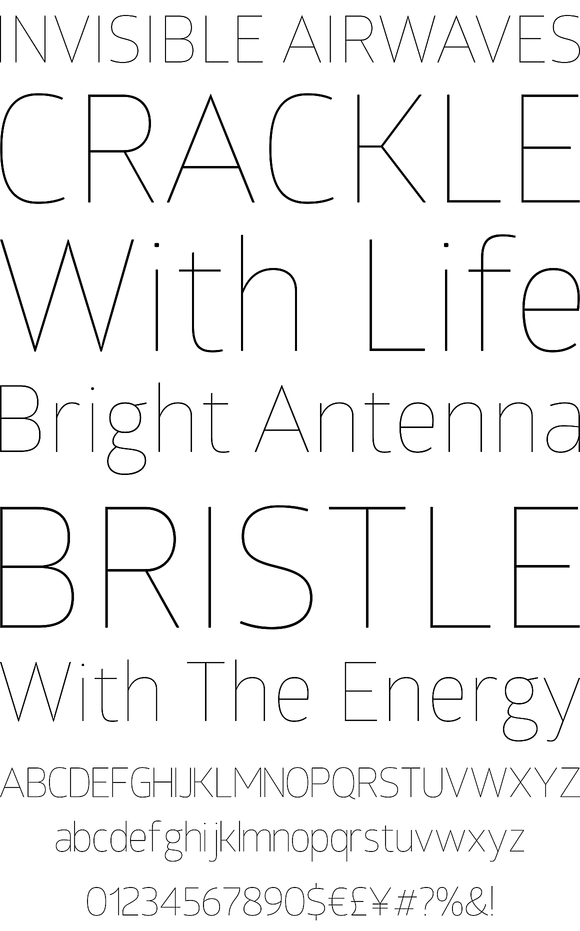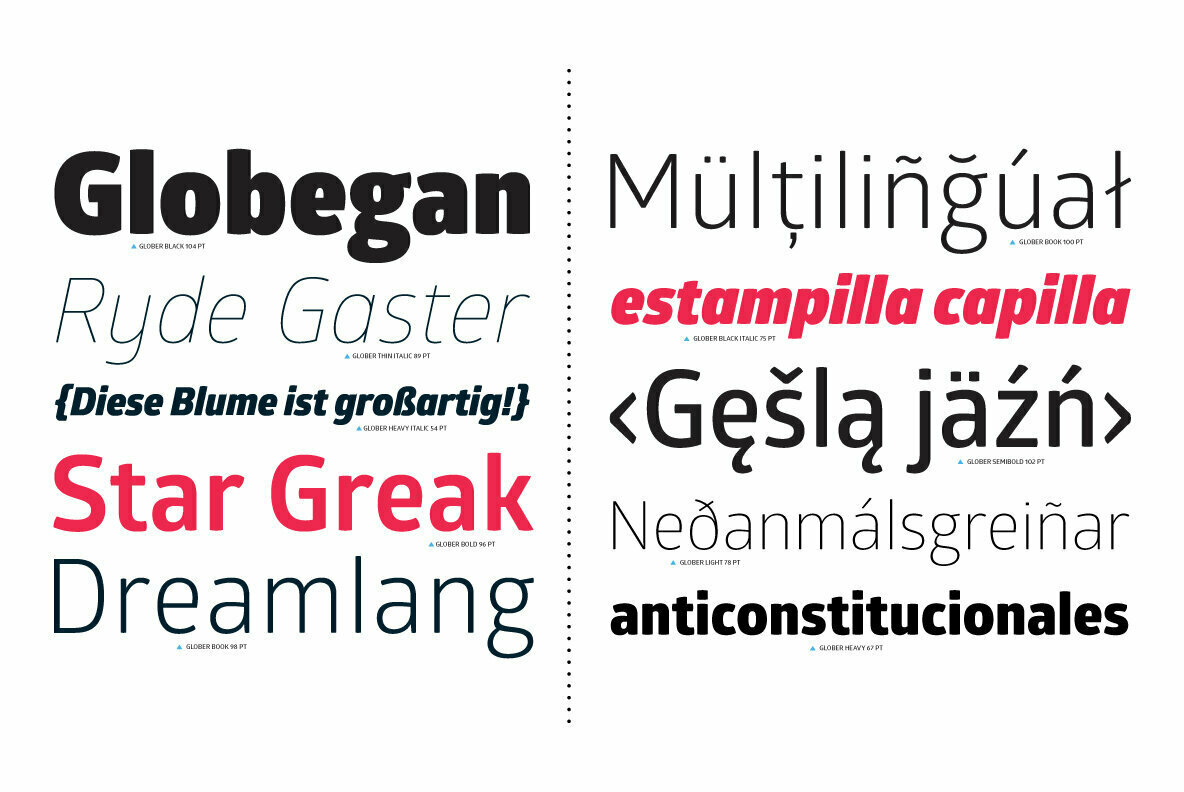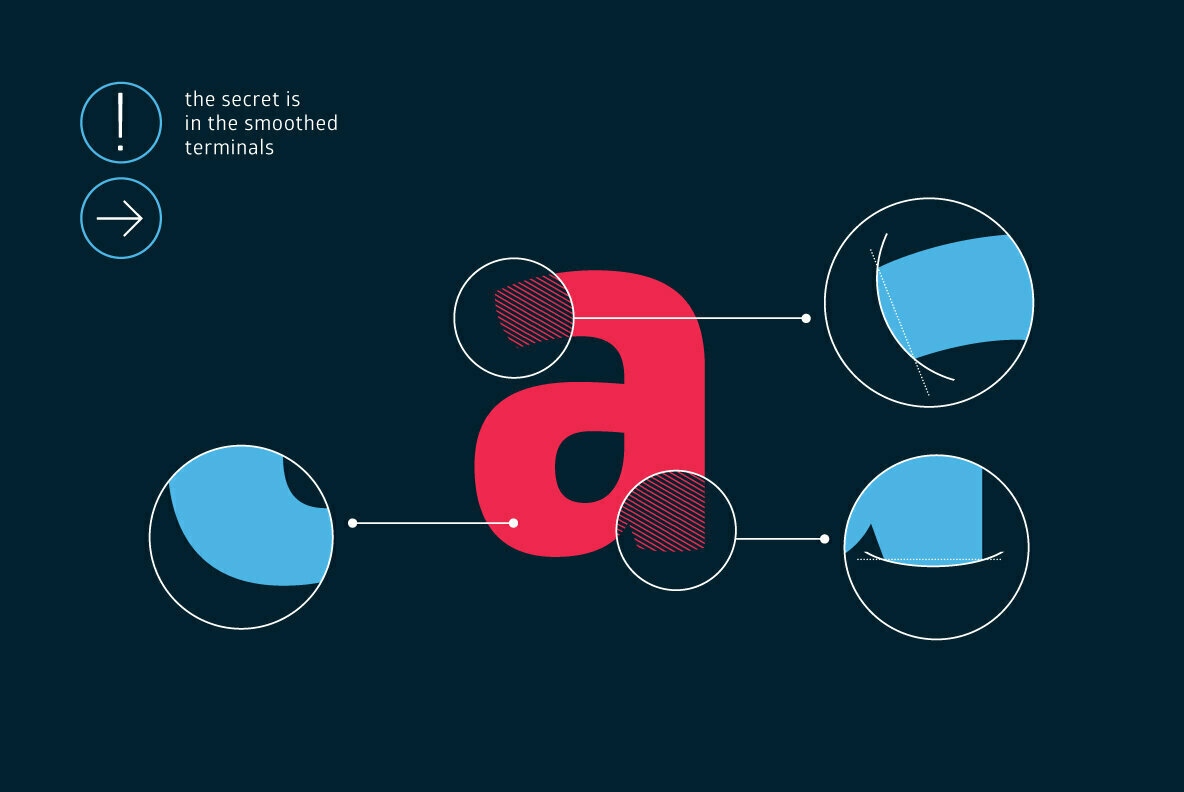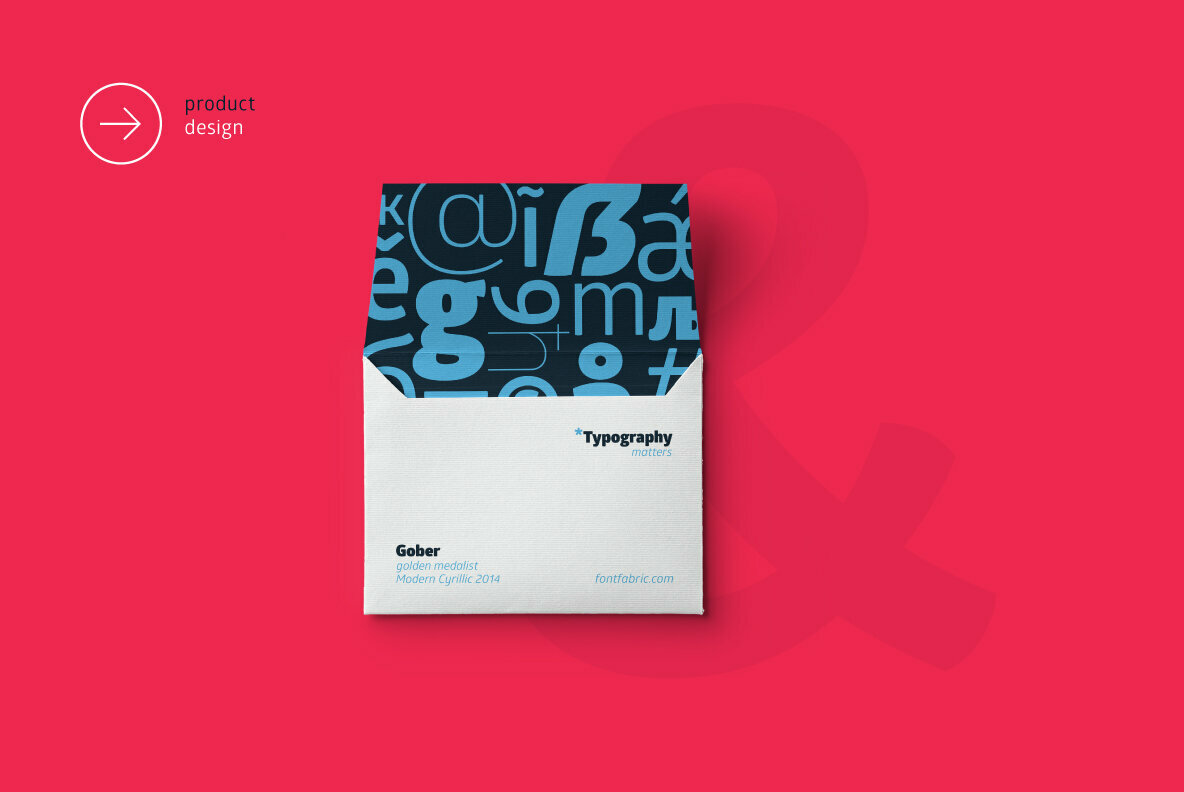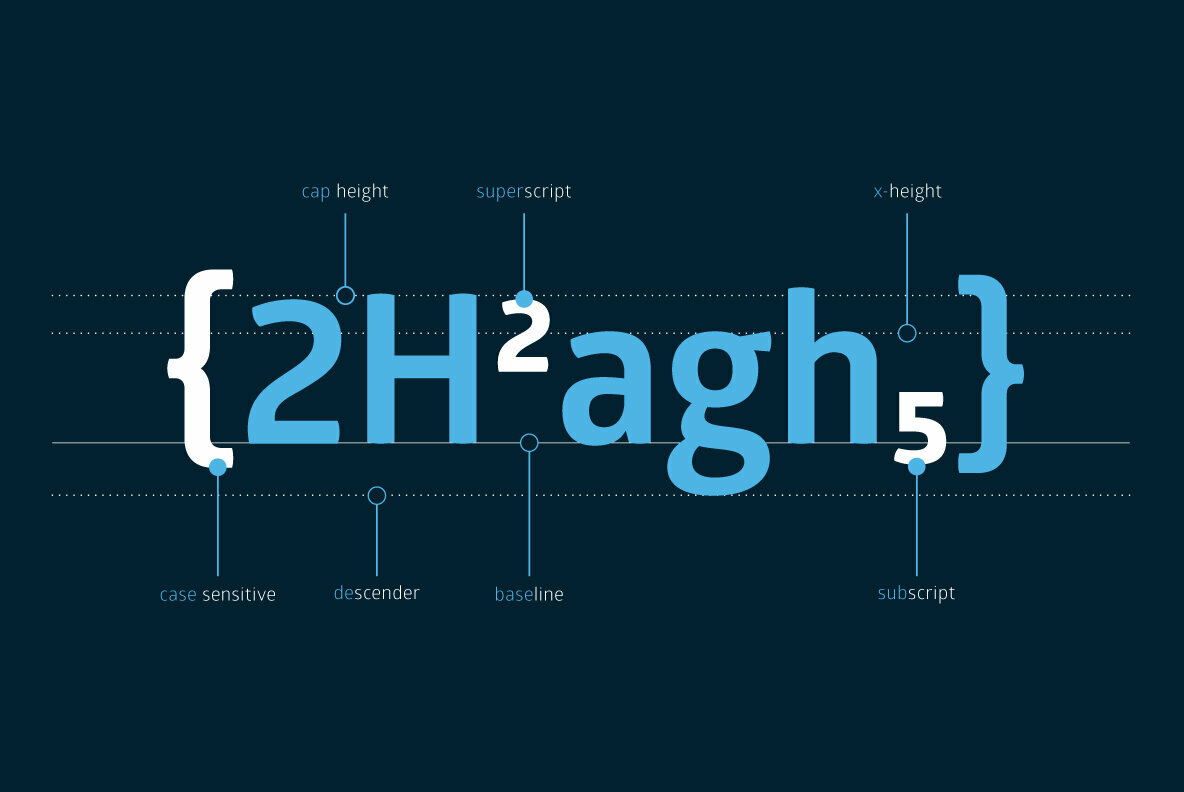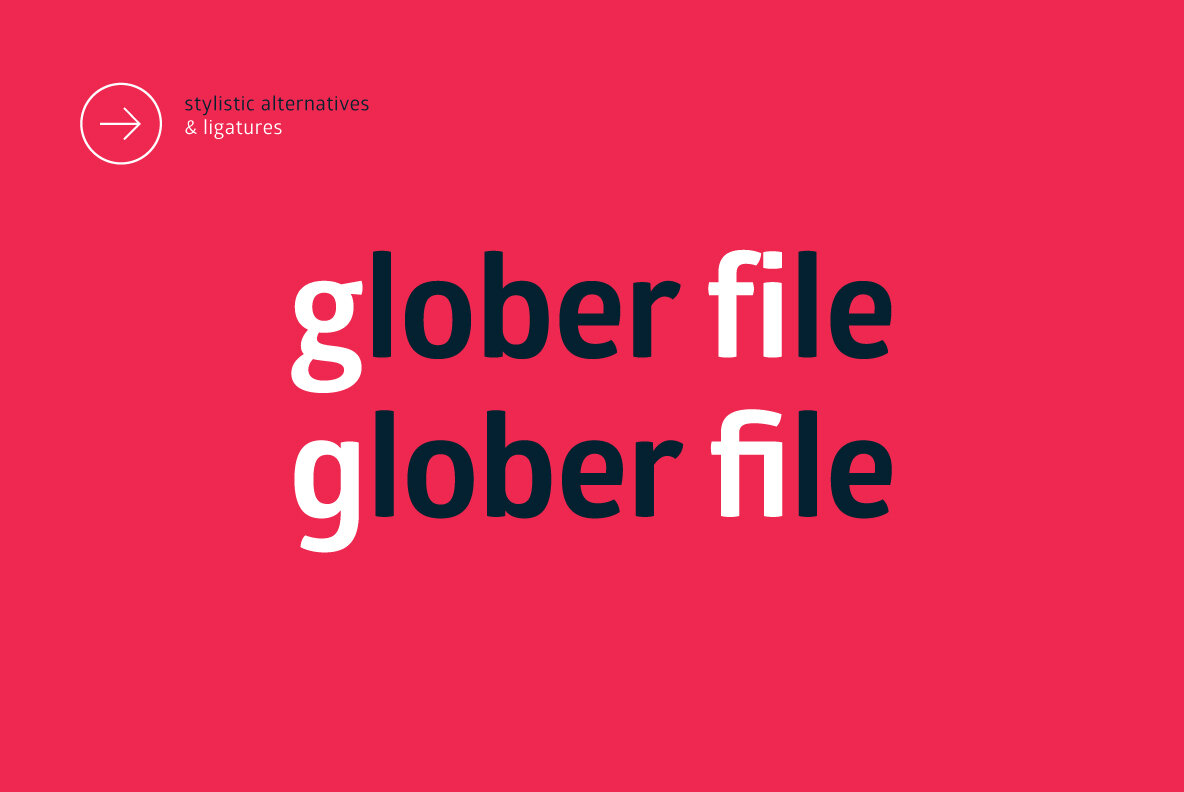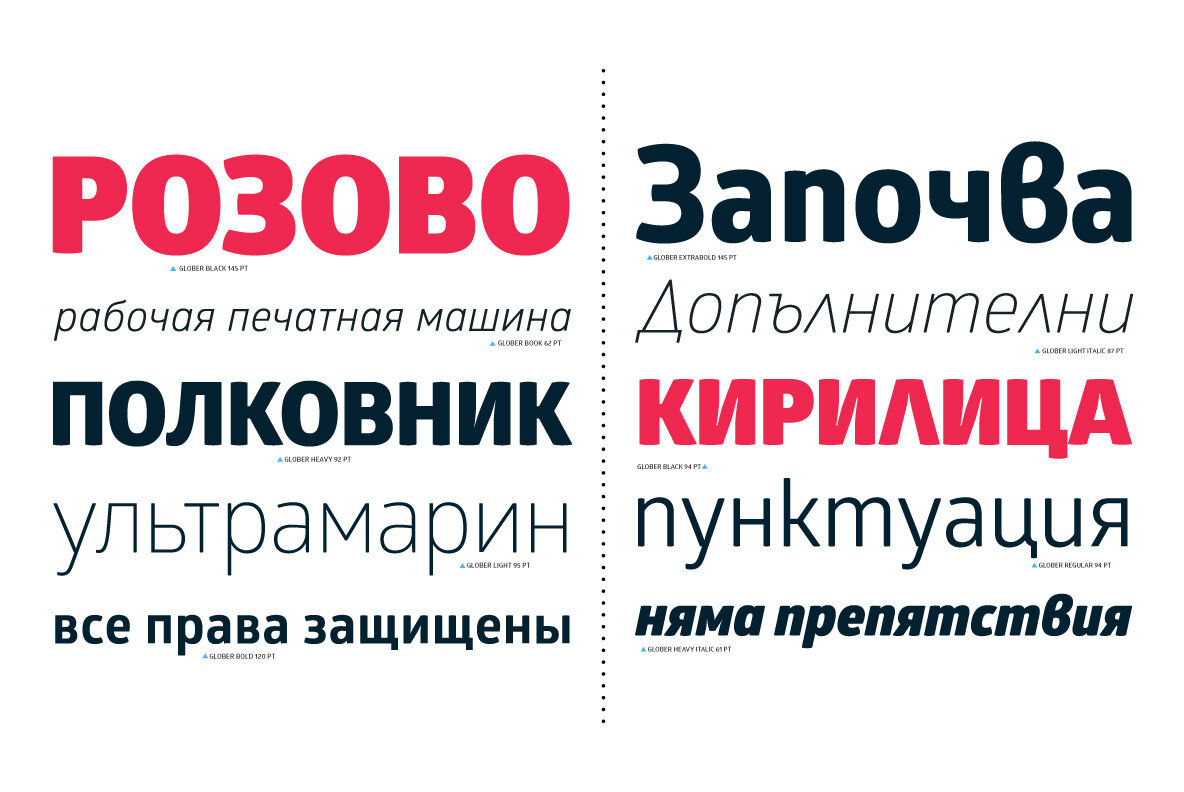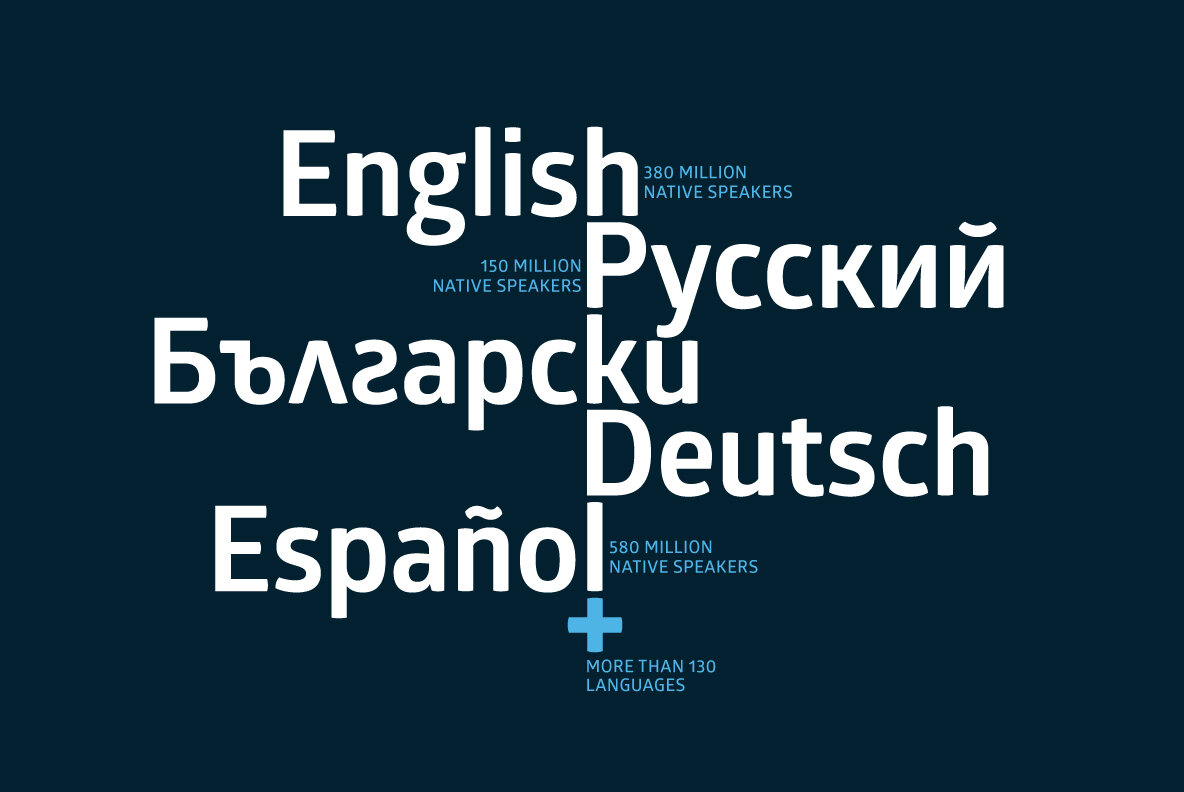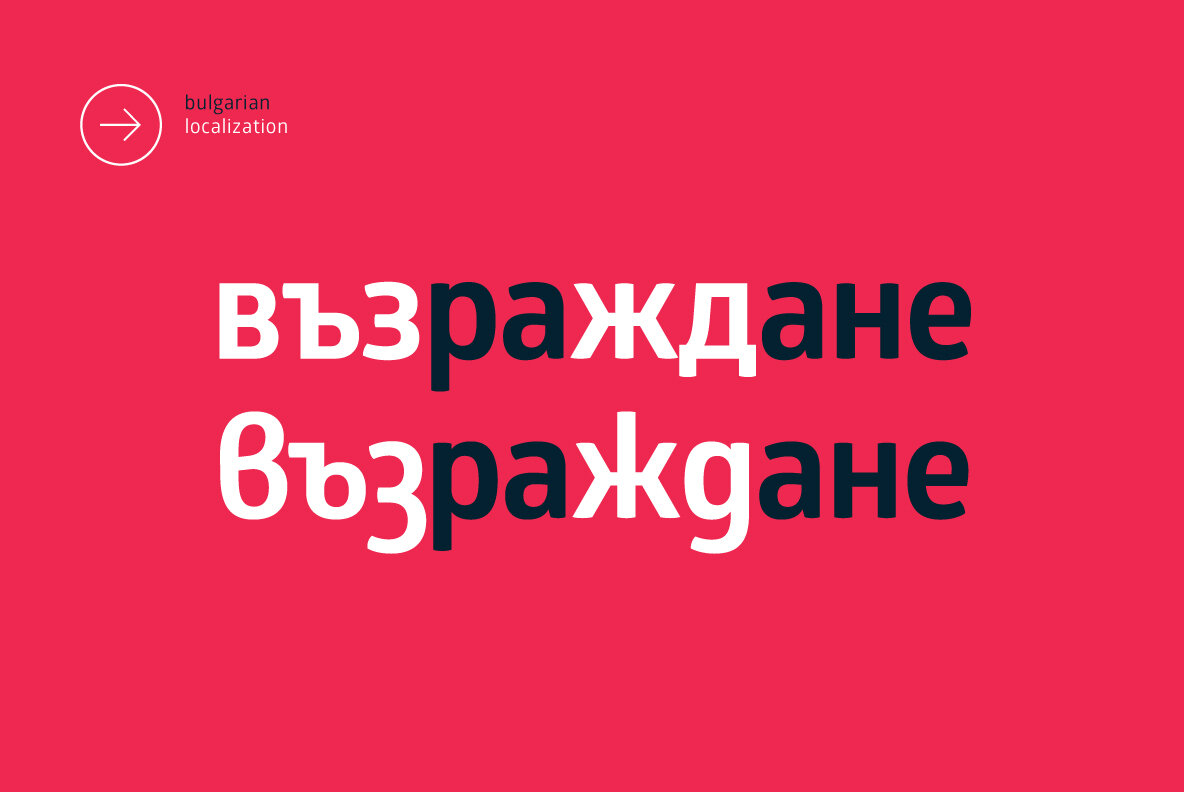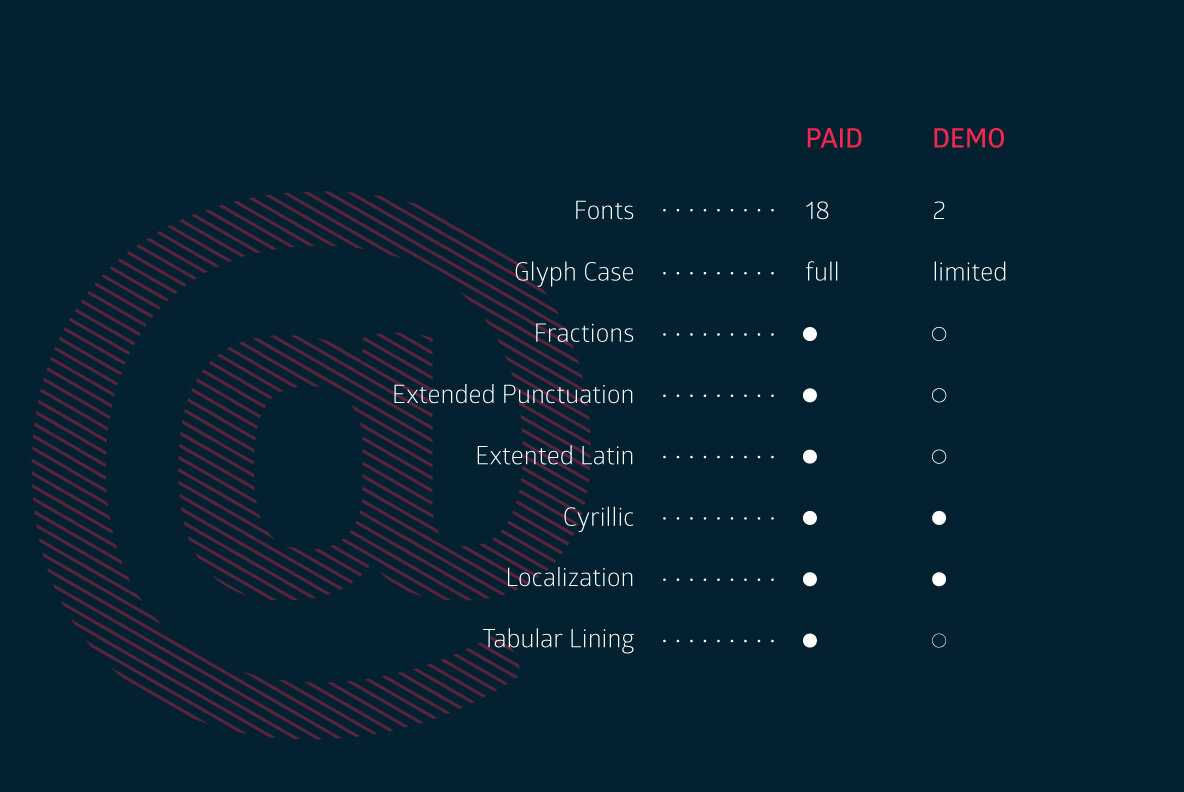
The Glober font family includes 18 weights - nine uprights with nine italics. It is characterized by excellent legibility in both - web & print design areas, well-finished geometric designs, optimized kerning, excellent web-font performance and legibility etc.
Inspired by the classic grotesque typefaces - Glober has his own unique style in expressed perfect softened geometric forms.
The font family is most suitable for headlines of all sizes, as well as for text blocks that come in both maximum and minimum variations. Glober font styles are applicable for any type of graphic design in web, print, motion graphics etc and perfect for t-shirts and other items like posters, logos.